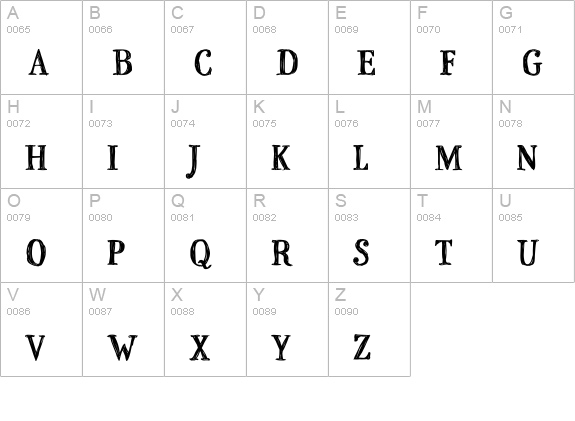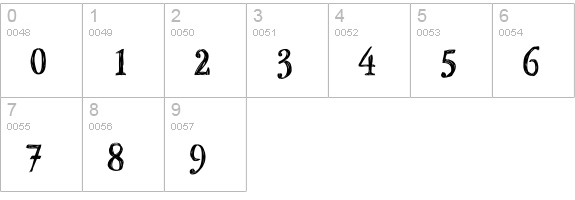
P22StanyanBold is a captivating and bold font that will leave a lasting impression on all who encounter it. With its strong and powerful letterforms, this font exudes confidence and sophistication. The thick strokes and clean lines make for a visually striking display, perfect for headlines, logos, and branding materials. What sets P22StanyanBold apart is not only its impeccable design but also its accessibility. This font is freely available to download at FontsMarket.com, making it accessible to designers and creatives worldwide. Whether you are a professional graphic designer or a passionate hobbyist, this font allows you to bring your ideas to life without any limitations. The versatility of P22StanyanBold is another noteworthy aspect. It seamlessly transitions from elegant and refined to bold and impactful, making it suitable for a wide range of projects. Whether you are working on a high-end luxury brand or a dynamic sports campaign, this font will effortlessly elevate your design. The attention to detail in P22StanyanBold is evident in its carefully crafted letterforms. Each character is meticulously designed to ensure legibility and readability, even at smaller sizes. This font is ideal for both print and digital applications, guaranteeing that your message will be conveyed with utmost clarity. In addition to its striking design and accessibility, P22StanyanBold is also a free font. This means that you can download and use it without any cost or restrictions. FontsMarket.com offers this font as part of their extensive collection, providing you with a valuable resource to enhance your creative projects. Embrace the power and beauty of P22StanyanBold and let your designs stand out from the crowd. With its bold presence and timeless appeal, this font is sure to make a lasting impression on any audience. Download it for free at FontsMarket.com and unlock the endless possibilities that this remarkable font has to offer.